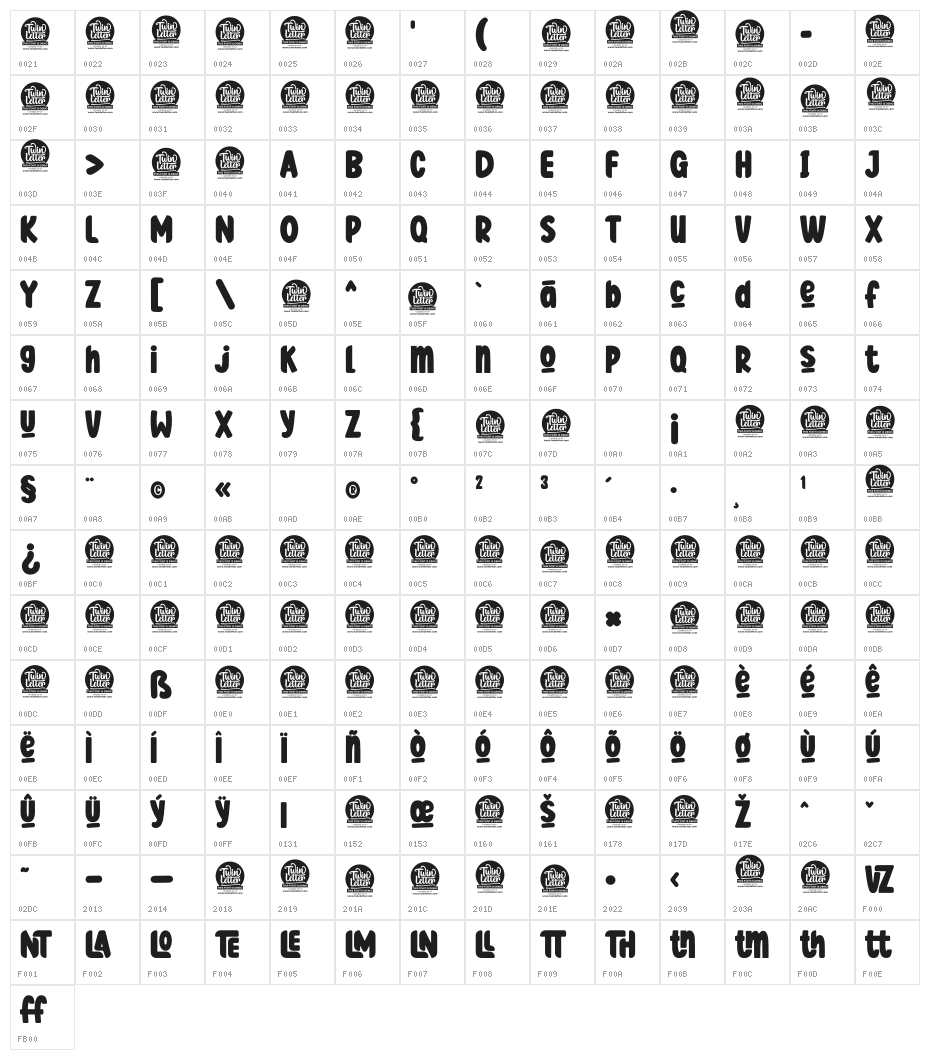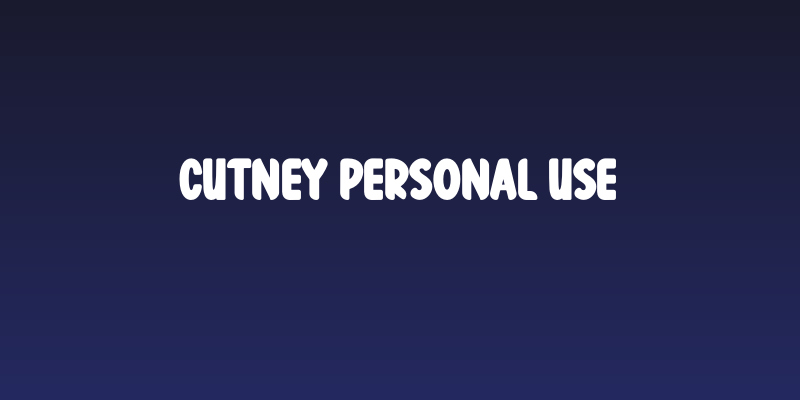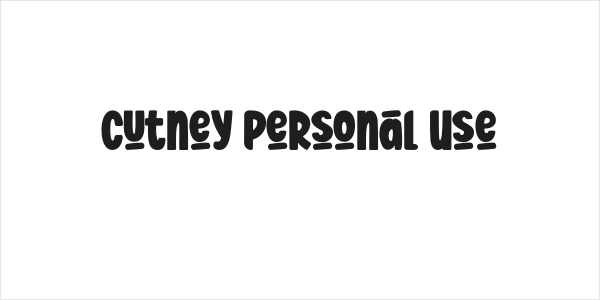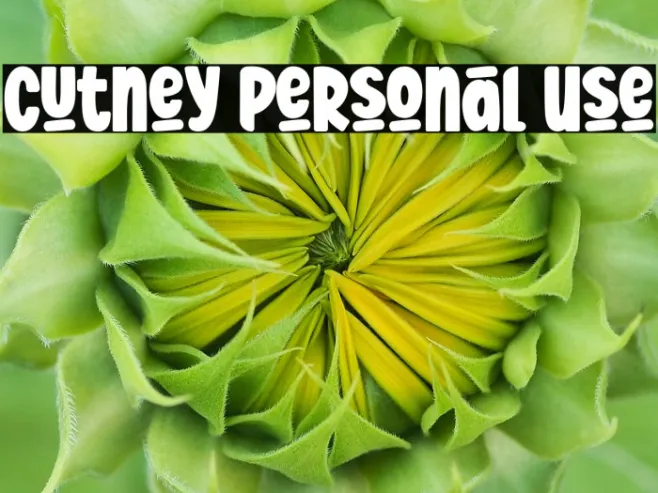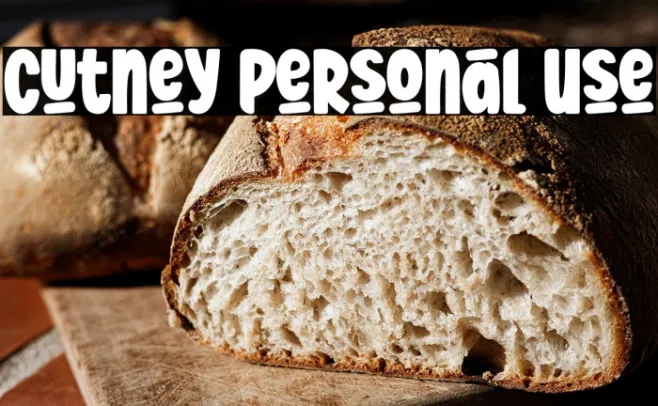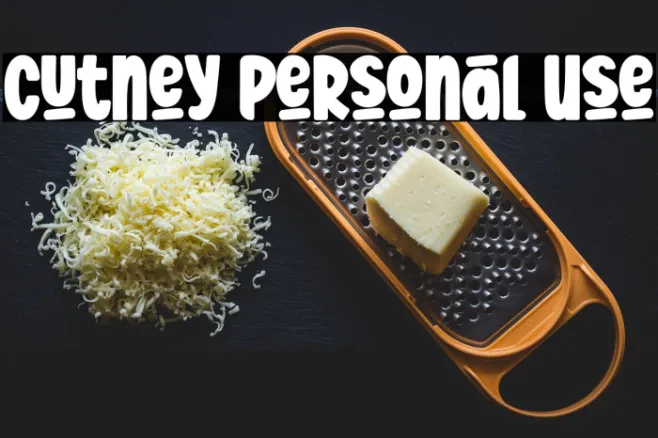
Cutney Personal Use Font
Cutney Personal Use Description
This font features a bold and playful design with rounded edges and a chunky appearance. The letters are uniformly thick, creating a strong visual impact. The uppercase and lowercase characters maintain a consistent style, with the lowercase letters slightly smaller but equally bold. The font exudes a friendly and approachable vibe, making it suitable for casual and fun projects. The special characters are designed to match the overall aesthetic, ensuring a cohesive look across all text elements.
| Overall Style | Playful, Modern |
| Proposed Projects | Ideal for children's books, playful branding, posters, and social media graphics. |